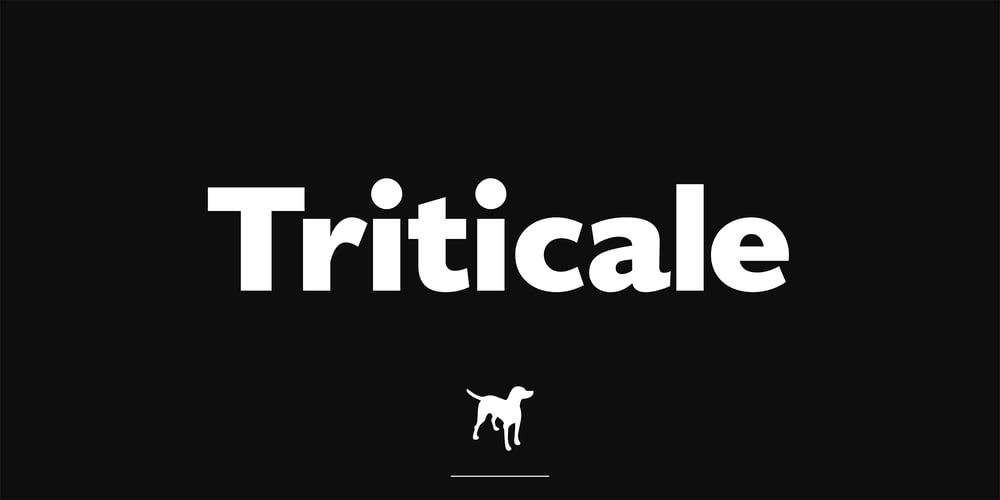
Triticale Font Family was designed by Erwin Krump and published by Erwin Krump. Triticale contains 16 styles and family package options. Triticale with 16 fonts, contains a large amount of features like small capitals, different figure sets, automated fractions, ordinals, ligatures. Nightjet is suitable for a wide range of applications and can be readily combined with other fonts.